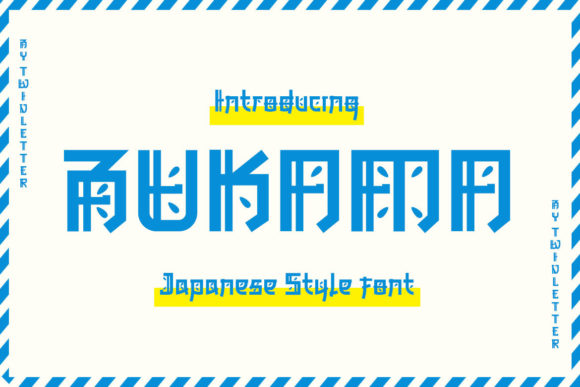
The Unforgettable Charm of Bukama Font: Elevate Your Designs with an Asian Flair
What Makes Bukama Font Special?
Bukama is a faux Japanese display font that adds an Asian flair to any project. Its unique design makes it perfect for logotypes, food banners, branding, brochures, posters, movie titles, book titles, and quotes. The striking and unusual graphic display of Bukama Font is sure to draw in viewers and make your projects stand out.
- ✨ Unique and distinctive design that sets it apart from other fonts
- ✅ Easy to read and understand, even in large and small sizes
- ✅ Highly versatile and can be used for various design projects
- ✅ Adds an Asian flair to designs, making them more captivating
- ⚠️ May not be suitable for body text due to its display font nature
- 🤔 Limited use of OpenType features, but still offers stylistic alternates
The Backstory of Bukama Font
The creator of Bukama Font was inspired by the unique and intricate designs found in traditional Japanese art. The font was crafted to capture the essence of Asian culture and provide designers with a distinctive and versatile font for their projects.
| What is Bukama Font? | Bukama Font is a faux Japanese display font with a distinctive and unusual shape, perfect for adding an Asian flair to designs. |
| What can I use Bukama Font for? | Bukama Font is suitable for various design projects, including logotypes, food banners, branding, brochures, posters, movie titles, book titles, and quotes. |
| Is Bukama Font easy to read? | Yes, Bukama Font is designed to be easy to read and understand, even in large and small sizes. |